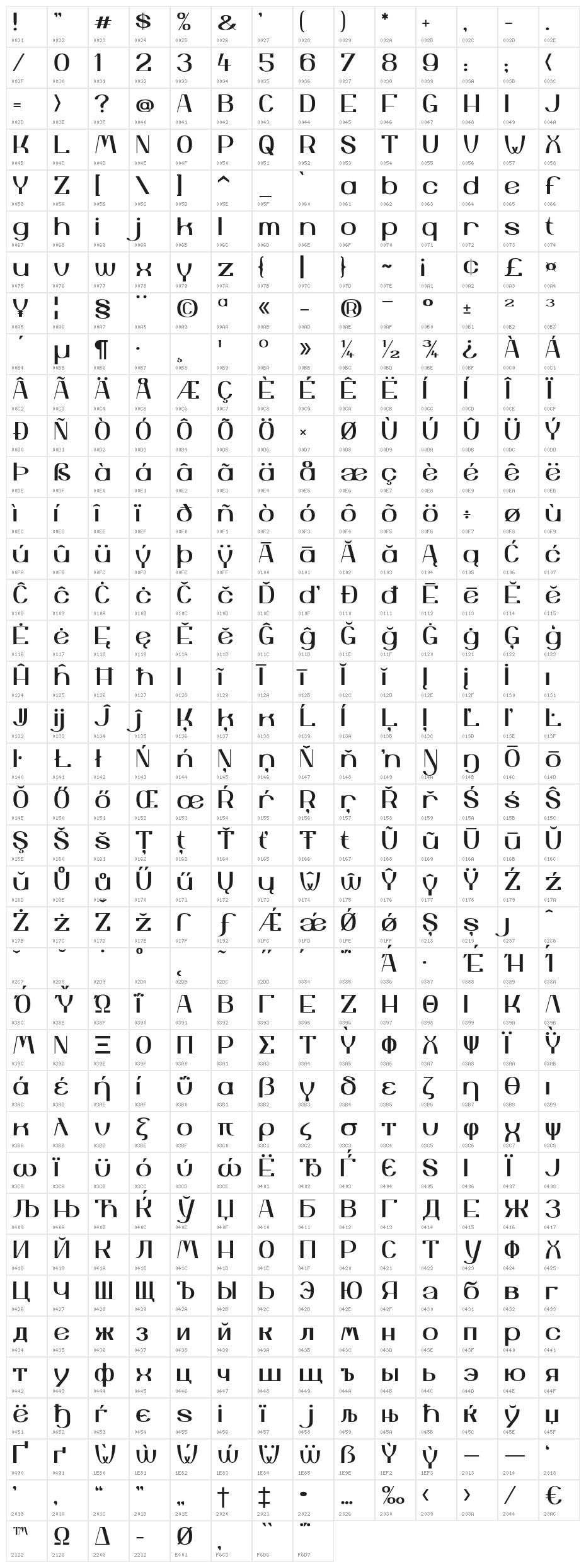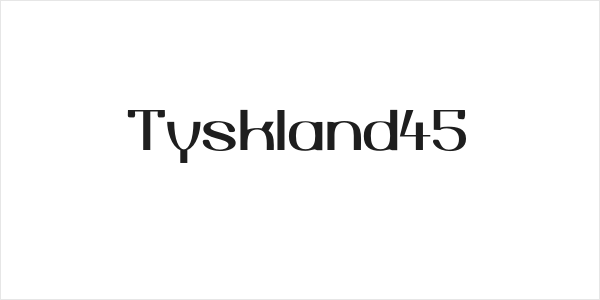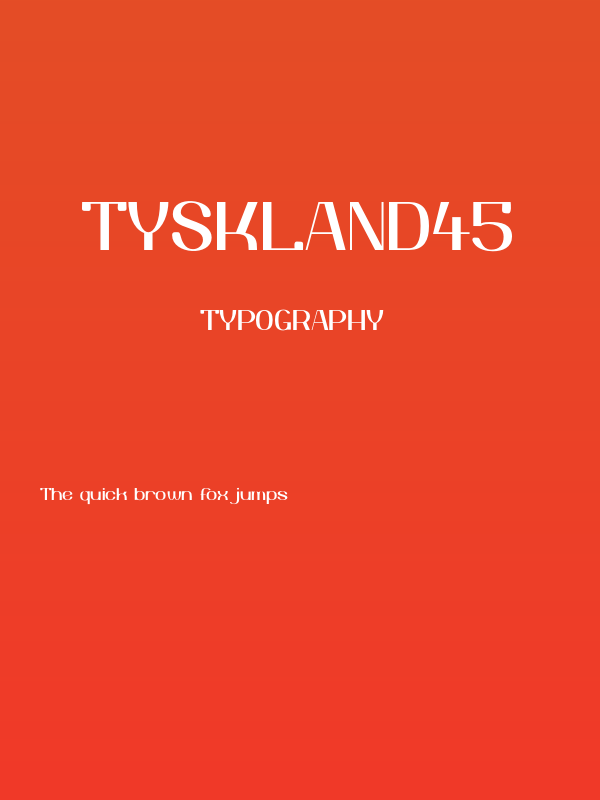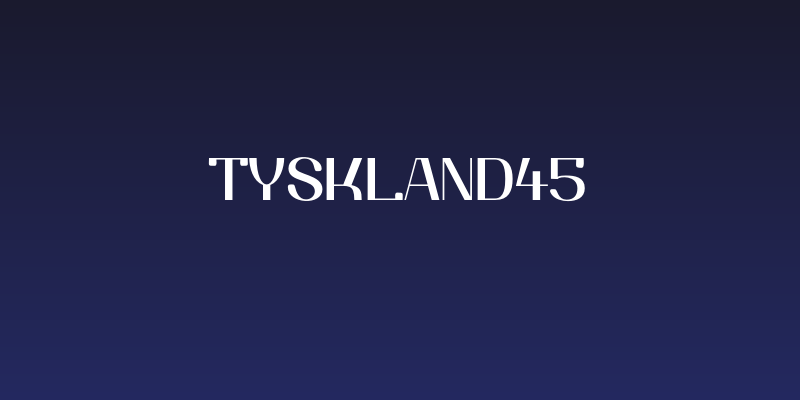
Tyskland45 Font
Tyskland45 Description
This font exhibits a modern and distinctive style with a unique blend of geometric and organic shapes. The uppercase letters feature bold, clean lines with subtle curves, creating a striking visual impact. The lowercase letters maintain a consistent style, offering a smooth transition between characters. The numerals are well-proportioned and align seamlessly with the overall design. Special characters are thoughtfully integrated, maintaining the font's cohesive appearance. This font's design is both contemporary and versatile, making it suitable for a variety of applications.